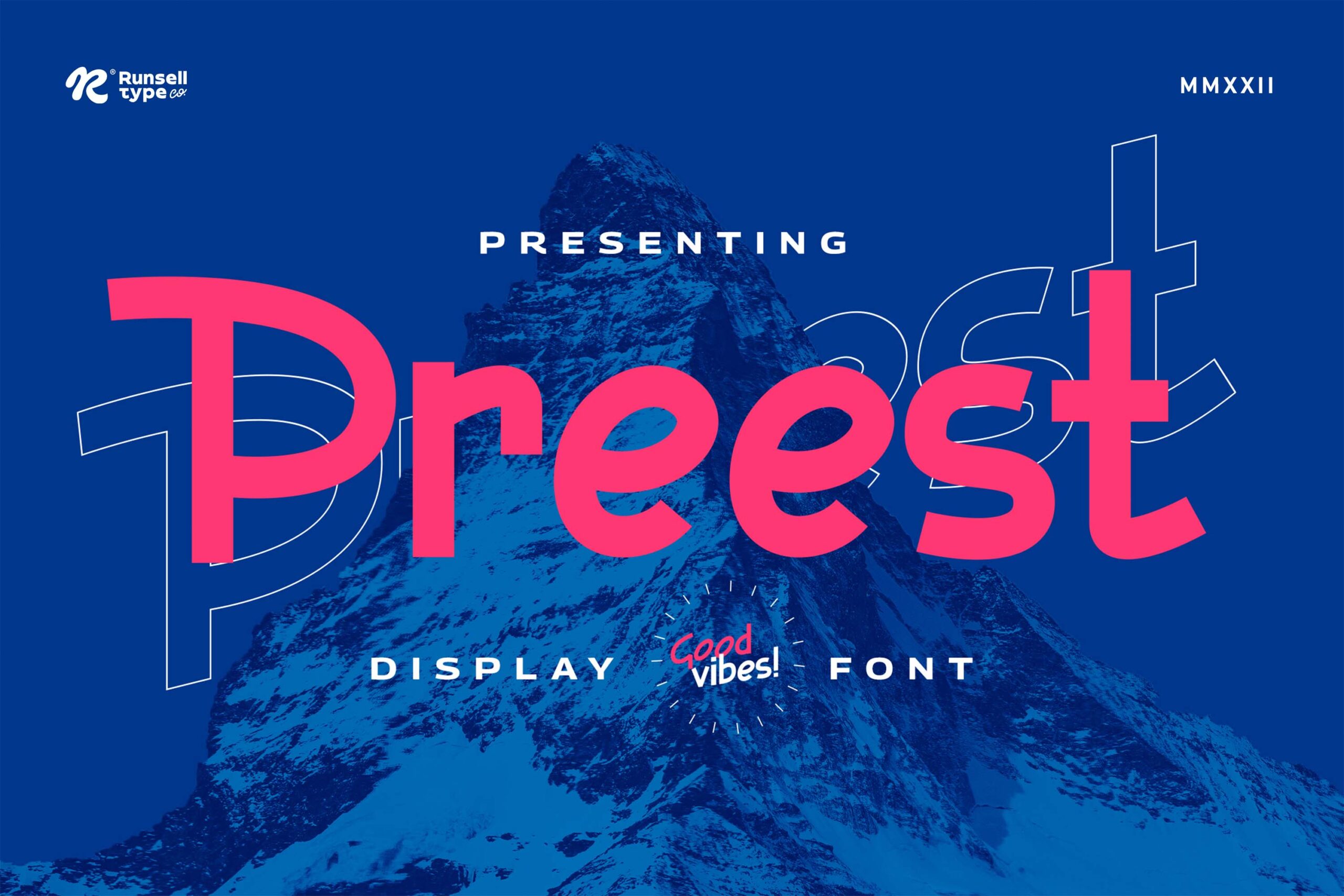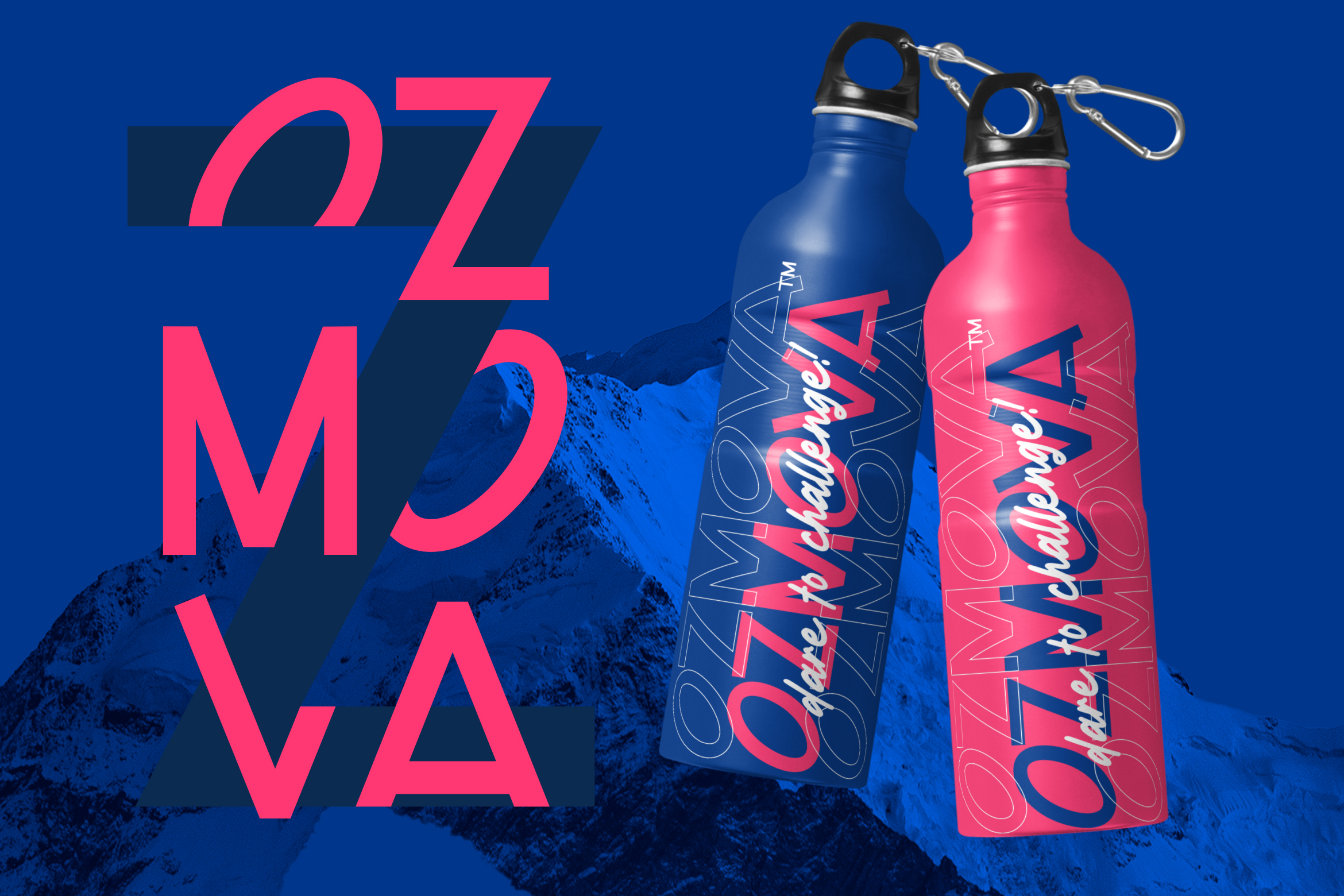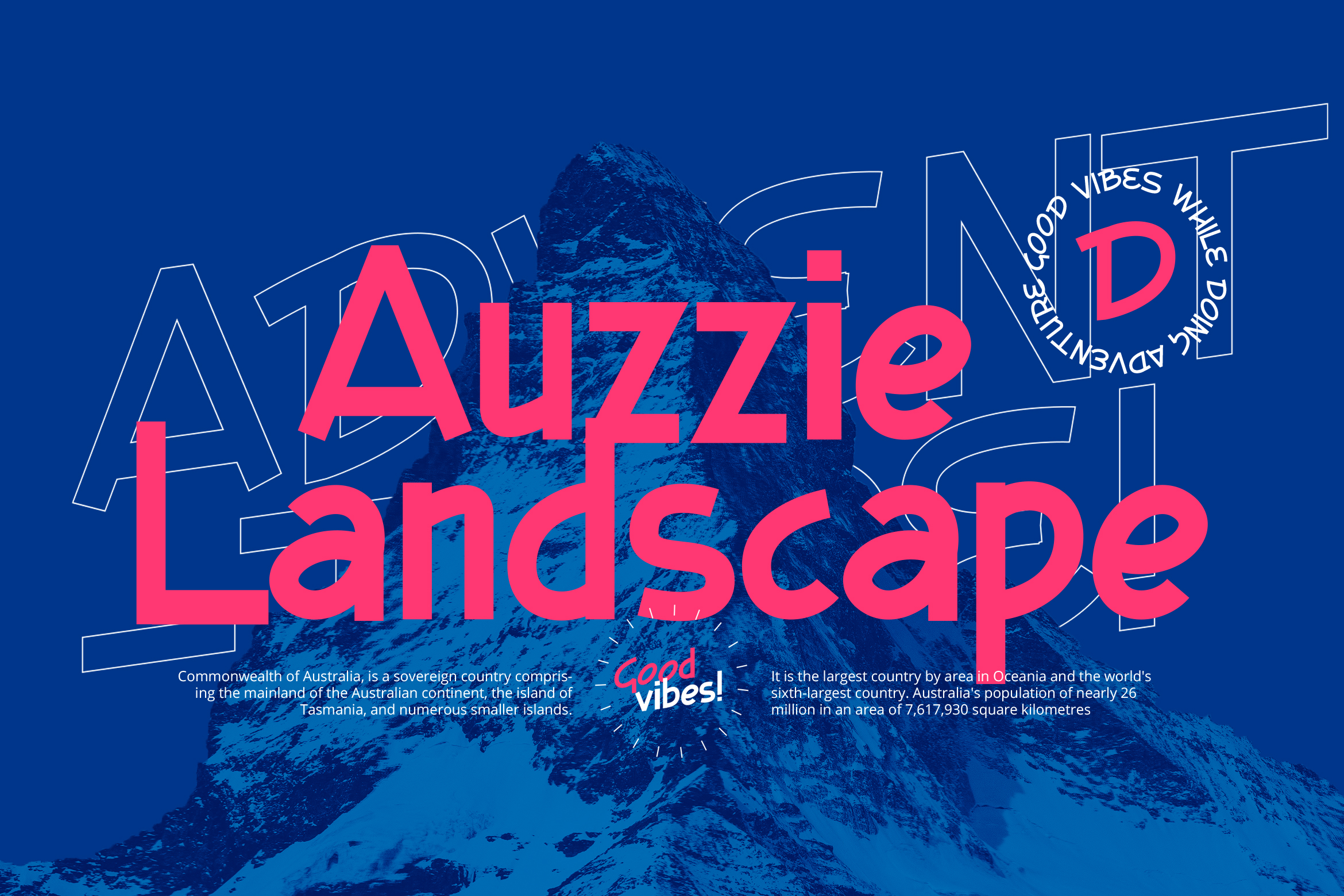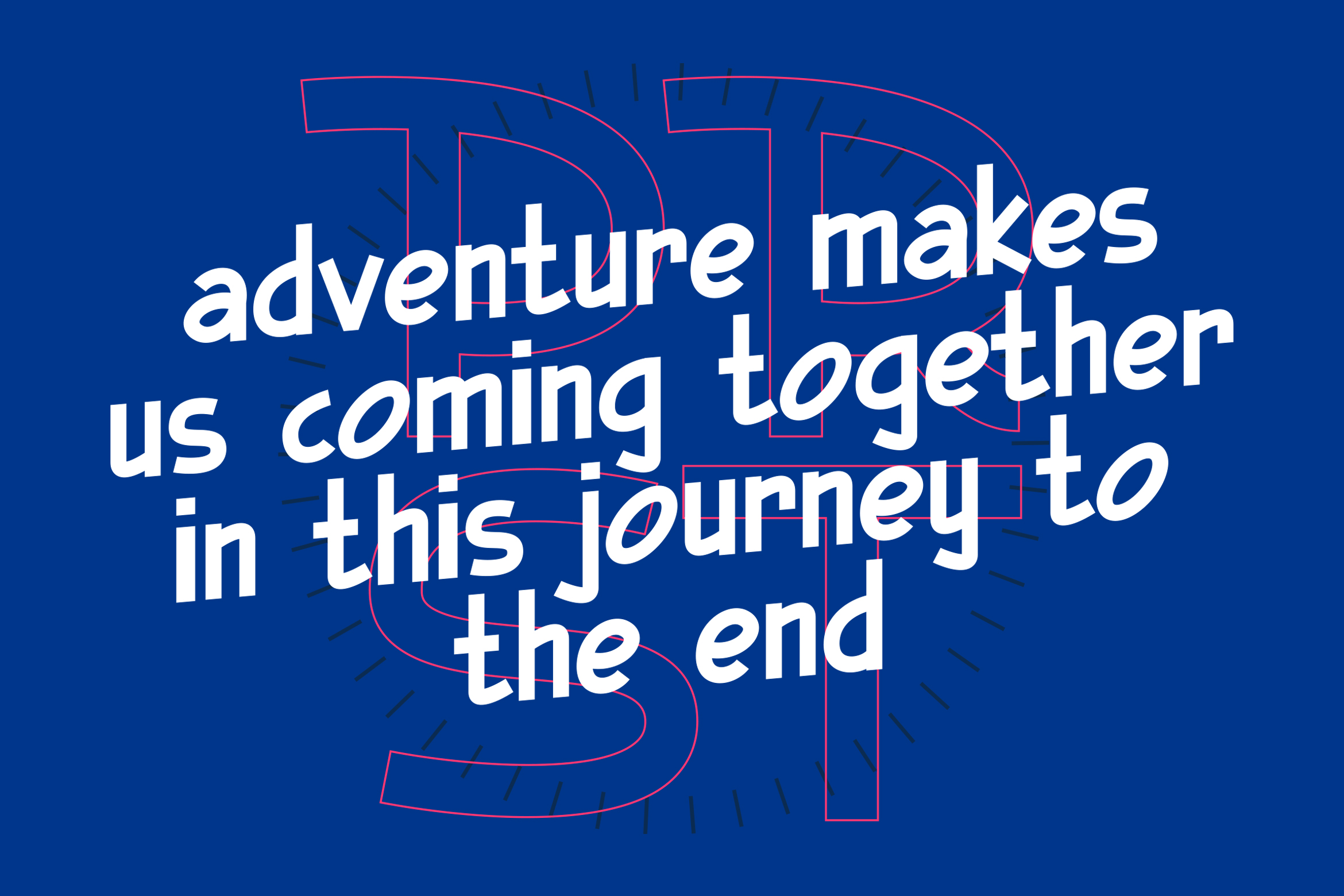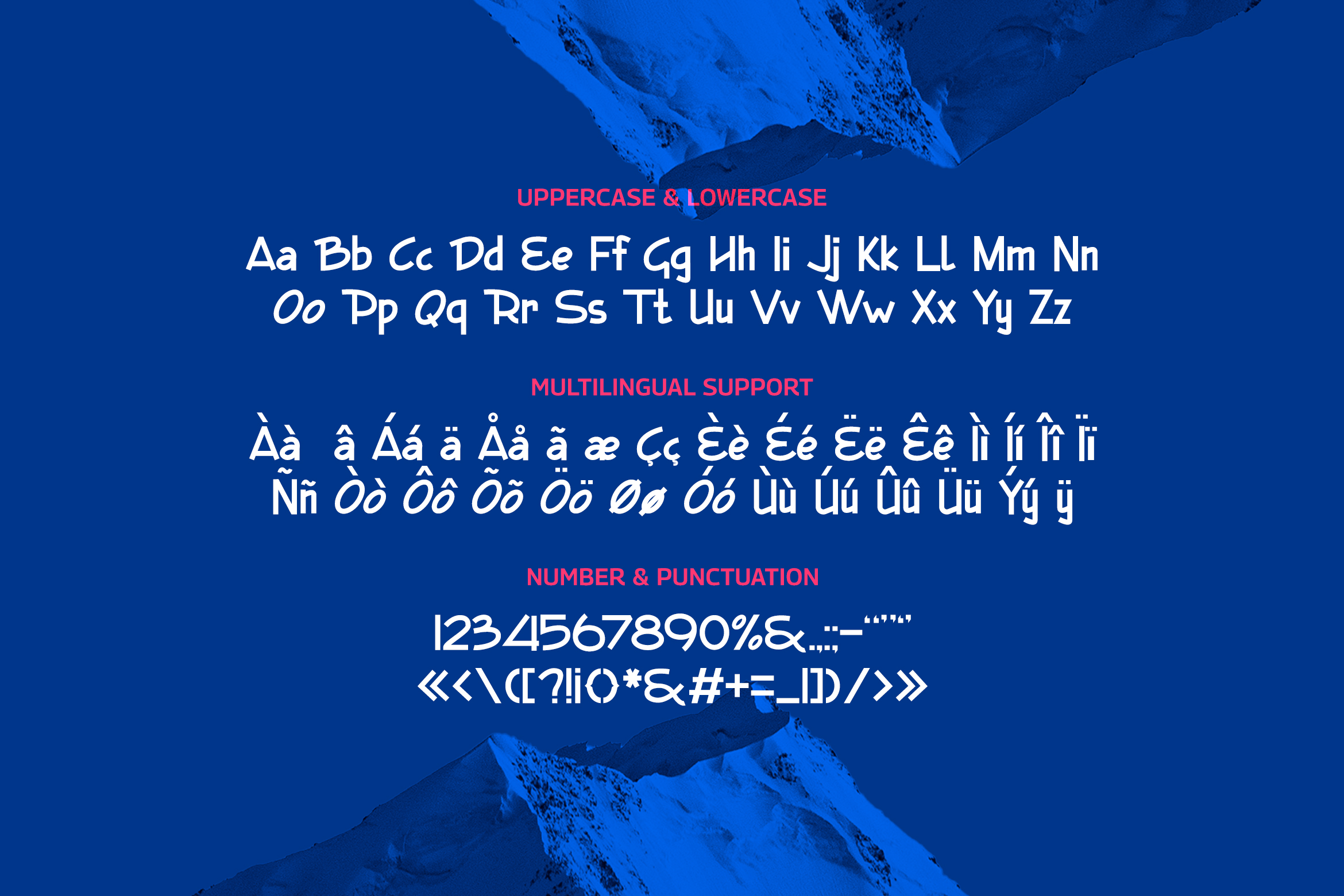
Preest is a bold and vibrant display font that brings energy and personality to every design. With its expressive curves and modern letterforms, Preest is crafted for visual impact—perfect for branding, posters, editorial headlines, and active lifestyle products. Its fun yet structured form balances playfulness and clarity, making it a great choice for conveying both bold messaging and good vibes.
Designed by Runsell Type Co., Preest supports multilingual characters and offers a full set of uppercase, lowercase, numbers, and punctuation. Its friendly tone and dynamic style make it ideal for youth brands, adventure-themed designs, and motivational content. Whether on a water bottle, a poster, or digital media, Preest delivers a punch of positivity and enthusiasm.